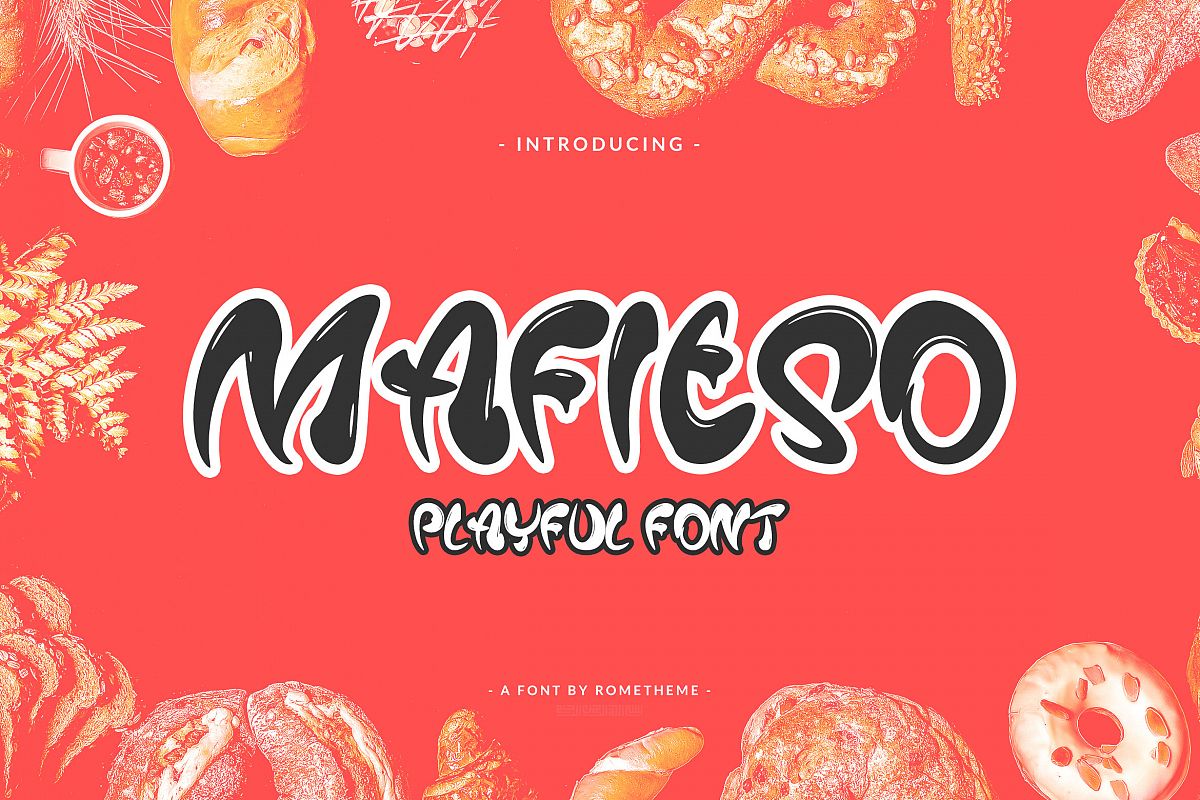
Mafieso - Playful Font
Mafieso
Mafieso is a playful font. Mafieso a display font for logos, wedding invitations, website, headline, letterheads, nameplate, labels, posters, quotes, badges, branding, greeting Cards, etc. and all project design other. Mafieso comes with sweet, playful, cute style. It contains a full set of uppercase letters, a large range of punctuation, and numerals.